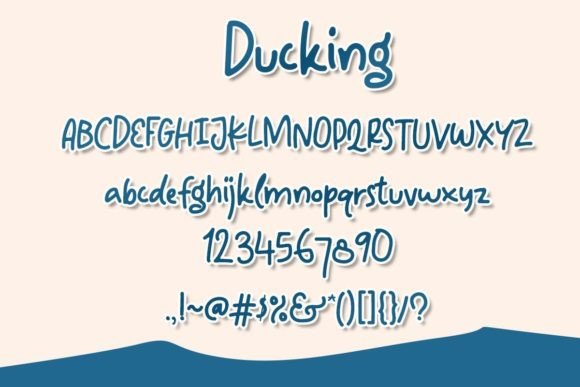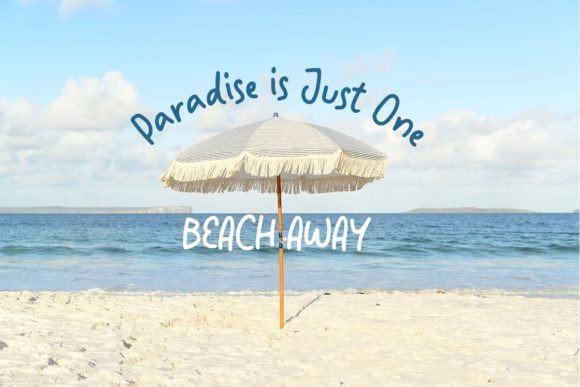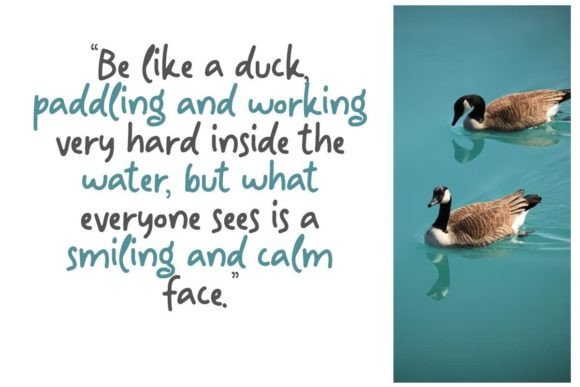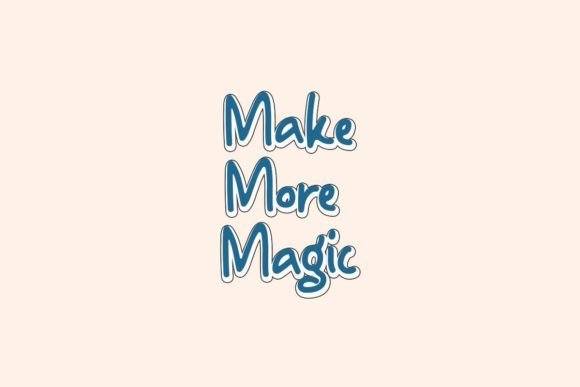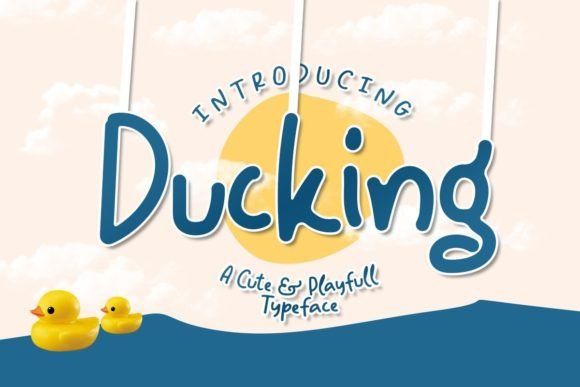
Ducking Font: Add a Playful Touch to Your Designs
Are you looking for a font that can add a playful and handmade touch to your designs? Look no further than Ducking Font! This display font is perfect for designers and crafters who want to bring a sense of whimsy and fun to their creative projects. In this article, we’ll take a closer look at the Ducking Font and explore its features, benefits, and uses.
What is Ducking Font?
Ducking Font is a playfully handmade font that delivers an incredibly playful handwritten feel. It’s a display font that’s designed to add a special touch to any design idea you can think of. With its unique and quirky style, Ducking Font is sure to make your designs stand out from the crowd.
Features of Ducking Font
So, what makes Ducking Font so special? Here are some of its key features:
- Playful and Handmade Feel: Ducking Font has a truly handmade feel that’s perfect for designs that require a personal touch.
- Unique and Quirky Style: This font has a one-of-a-kind style that’s sure to add a touch of whimsy to your designs.
- Display Font: Ducking Font is a display font that’s designed to make a statement. It’s perfect for headlines, titles, and other design elements that need to stand out.
- Highly Versatile: This font can be used for a wide range of design projects, from branding and advertising to packaging and scrapbooking.
Benefits of Using Ducking Font
So, why should you use Ducking Font in your designs? Here are some of the benefits of using this font:
- Adds a Playful Touch: Ducking Font is perfect for designs that require a playful and lighthearted touch.
- Increases Creativity: This font can help inspire creativity and add a fresh perspective to your designs.
- Enhances Brand Personality: Ducking Font can help bring your brand personality to life and add a human touch to your designs.
- Easy to Read: Despite its playful style, Ducking Font is easy to read and understand, making it perfect for designs that require a clear message.
Uses of Ducking Font
So, what can you use Ducking Font for? Here are some ideas to get you started:
- Branding and Advertising: Use Ducking Font to add a playful touch to your branding and advertising materials, such as logos, business cards, and brochures.
- Packaging Design: This font is perfect for packaging design, adding a fun and playful touch to product labels and packaging.
- Scrapbooking and Journaling: Ducking Font is a great addition to any scrapbooking or journaling project, adding a personal and handmade touch to your pages.
- Social Media Graphics: Use Ducking Font to create eye-catching social media graphics that are sure to grab attention.
Tips for Using Ducking Font
Here are some tips for using Ducking Font effectively in your designs:
- Use it Sparingly: Because Ducking Font is a display font, it’s best to use it sparingly to add emphasis to key design elements.
- Pair it with Other Fonts: Experiment with pairing Ducking Font with other fonts to create a unique and interesting contrast.
In conclusion, Ducking Font is a playfully handmade font that’s perfect for designers and crafters who want to add a playful and whimsical touch to their designs. With its unique and quirky style, this font is sure to make your designs stand out from the crowd. Whether you’re working on a branding project, packaging design, or scrapbooking page, Ducking Font is a great choice. So why not give it a try and see the difference it can make in your designs?